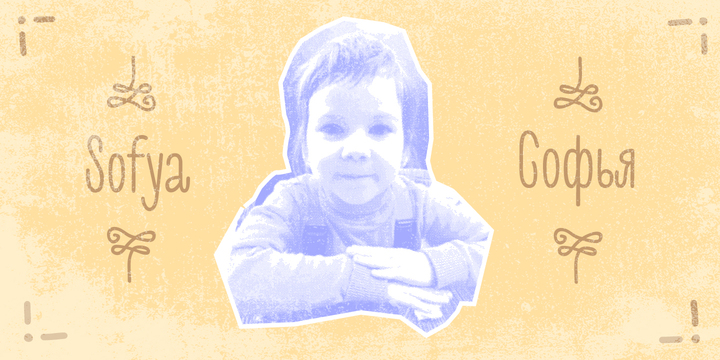
Sofya
by Gaslight
The Sofya Font Family was designed by Roman Shchyukin and published by Gaslight. Sofya contains 1 styles. More about this family
This funny script font based on the logo which we did. It will look great on the package, restaurant menus, logos and magazine headlines. A large number of ligatures help you vary your design.
Designers: Roman Shchyukin
Foundry: Gaslight
Gaslight Type Foundry, founded in summer of 2011, is a collaboration between two type designers - Valery Zaveryaev and Roman Shchyukin. Type design is our hobby, a hobby, that carry us completely... almost. Our purpose is to design quality typefaces with supporting Latin and Cyrillic characters, for using in various kinds of design.